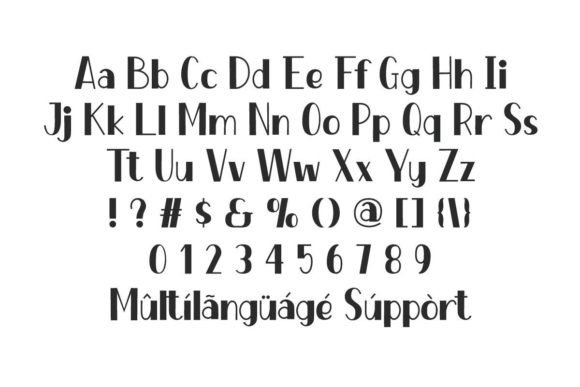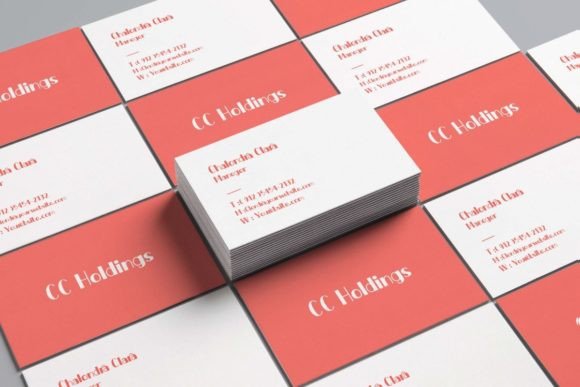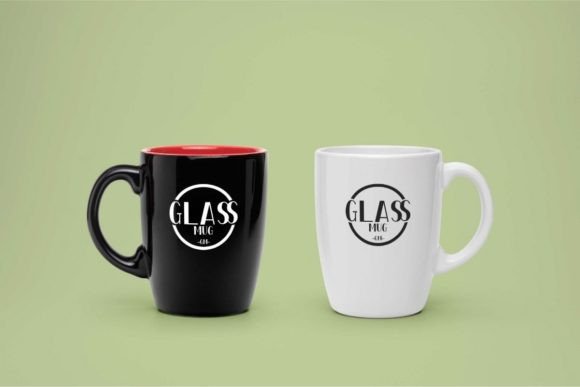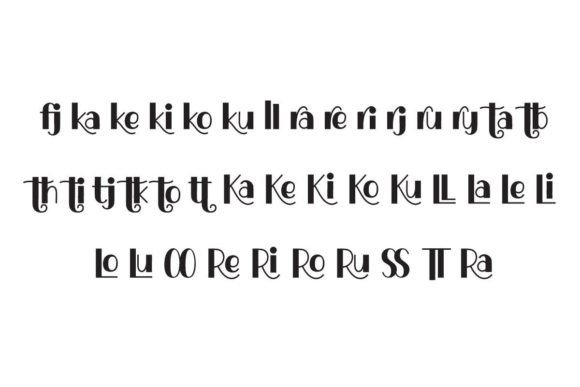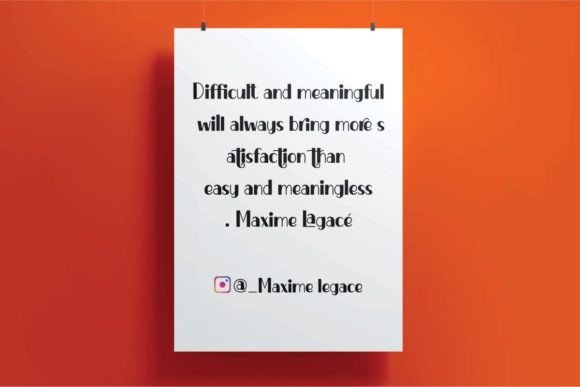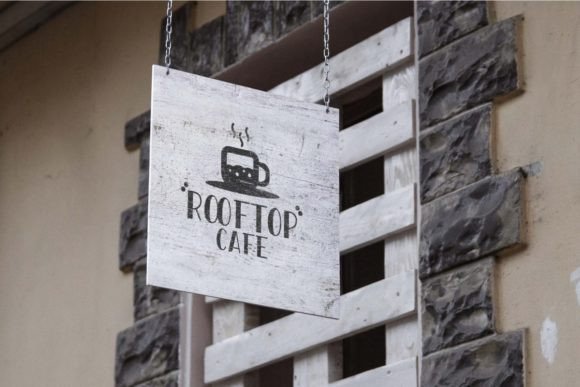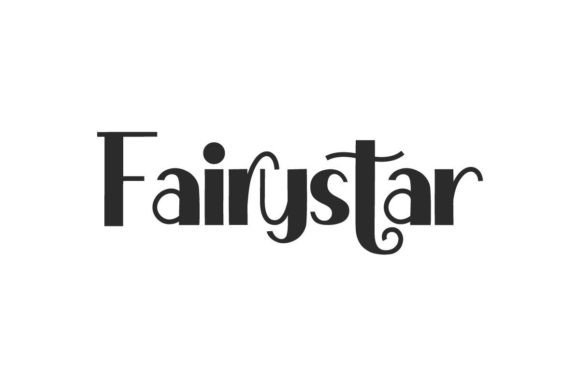
Introducing Fairystar Font: The Perfect Choice for Creative Designs
Are you a designer or crafter looking for a font that can add a touch of whimsy and fun to your creations? Look no further than Fairystar Font! This adorable sans serif font is perfect for a wide range of projects, from business cards and product designs to comics, branding, and more.
What Makes Fairystar Font So Special?
Fairystar Font is a cute and fun sans serif font that is sure to capture the attention of your audience. Its clean and simple design makes it highly versatile, allowing it to be used in a variety of contexts. Whether you’re creating a business card, a product label, or a social media graphic, Fairystar Font is the perfect choice.
Industries That Will Love Fairystar Font
Many industries will love Fairystar Font, including:
- Clothing and Fashion: Add a touch of whimsy to your fashion brand with Fairystar Font. It’s perfect for creating eye-catching labels, tags, and advertisements.
- Comics and Graphic Novels: Fairystar Font is a great choice for comic book creators and graphic novelists. Its fun and playful design is sure to appeal to readers of all ages.
- Brands and Businesses: Establish your brand’s personality with Fairystar Font. Its clean and modern design makes it perfect for creating logos, business cards, and marketing materials.
- Homeware and Decor: Add a touch of magic to your homeware and decor products with Fairystar Font. It’s perfect for creating labels, tags, and packaging that will make your products stand out.
Why Choose Fairystar Font?
There are many reasons why Fairystar Font is the perfect choice for your next project. Here are just a few:
- Unique and Eye-Catching: Fairystar Font is a one-of-a-kind font that is sure to capture the attention of your audience.
- Highly Versatile: Fairystar Font can be used in a wide range of contexts, from business cards and product designs to comics and branding.
- Easy to Read: Despite its playful design, Fairystar Font is highly legible and easy to read, making it perfect for body text and headlines.
- Fun and Whimsical: Fairystar Font adds a touch of whimsy and fun to any design, making it perfect for brands and businesses that want to establish a playful personality.
How to Use Fairystar Font in Your Designs
Using Fairystar Font in your designs is easy! Here are a few tips to get you started:
- Pair it with Other Fonts: Fairystar Font pairs well with other sans serif fonts, as well as script fonts and serif fonts.
- Use it for Headlines and Body Text: Fairystar Font is highly legible, making it perfect for both headlines and body text.
- Experiment with Colors: Fairystar Font looks great in a variety of colors, from bright and bold to pastel and soft.
- Add it to Your Brand Kit: Consider adding Fairystar Font to your brand kit to ensure consistency across all of your marketing materials.